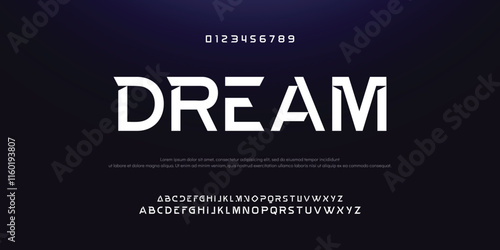
Design Modern abstract digital alphabet font. Minimal technology typography, Creative urban sport fashion futuristic font and with numbers. vector illustration.